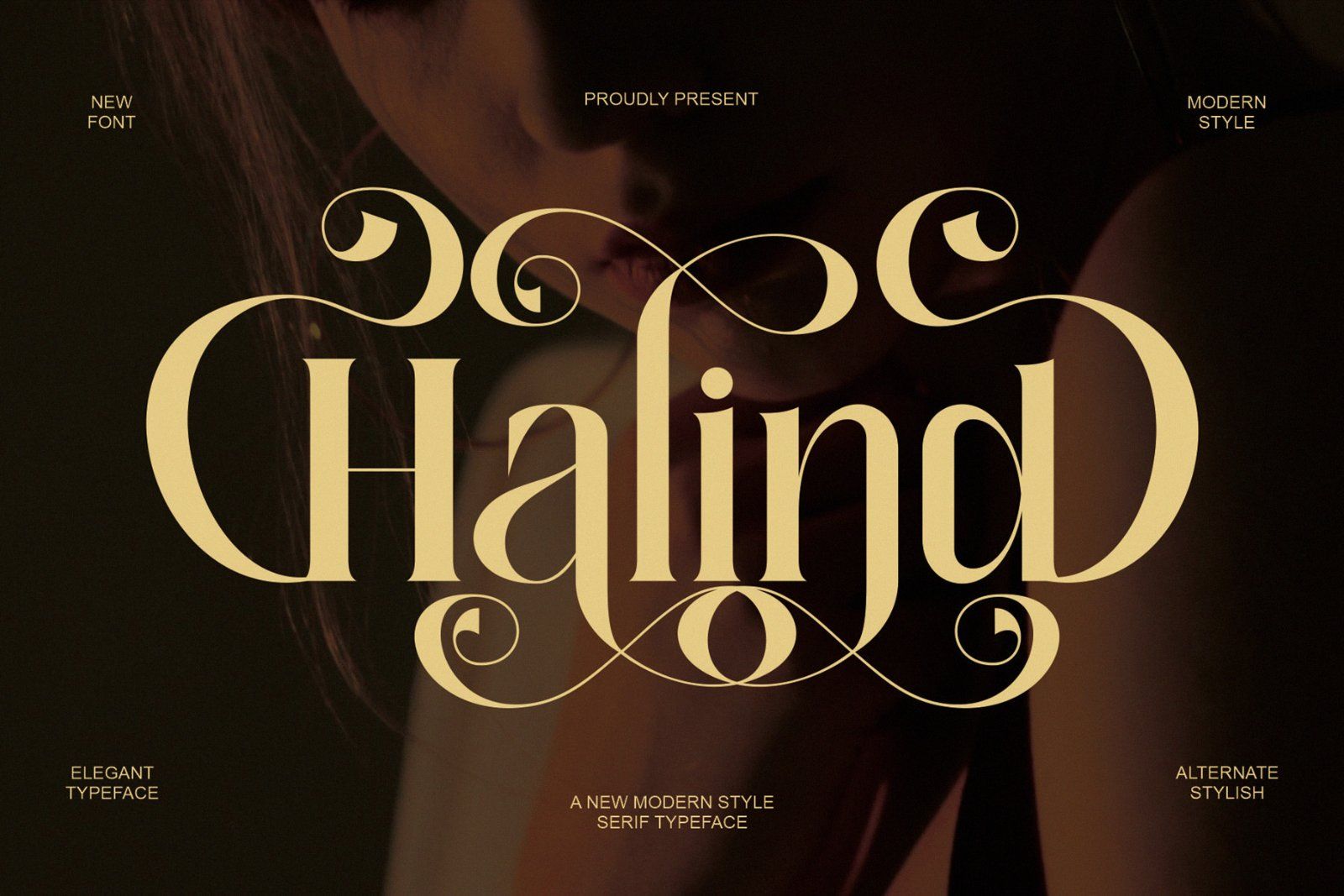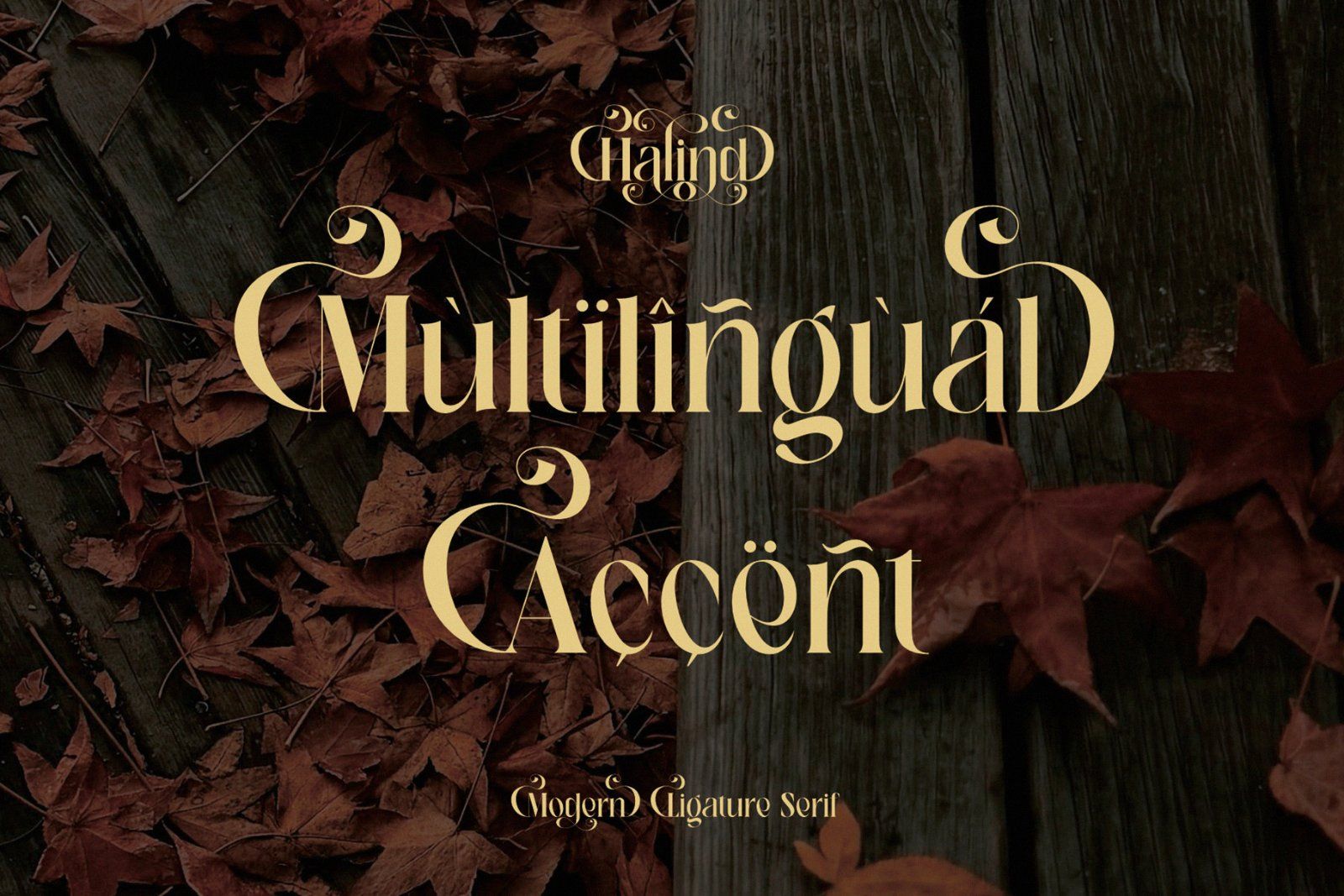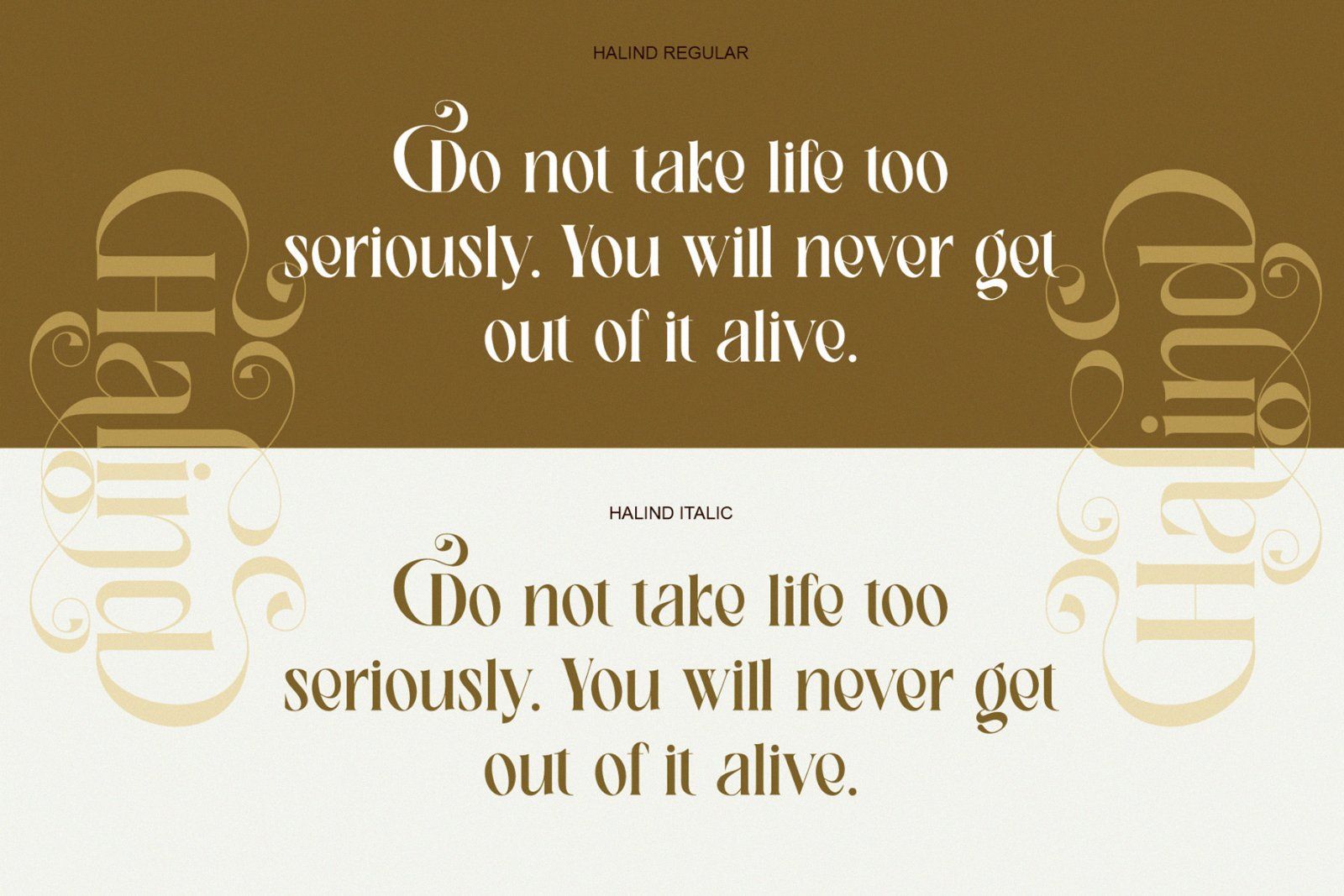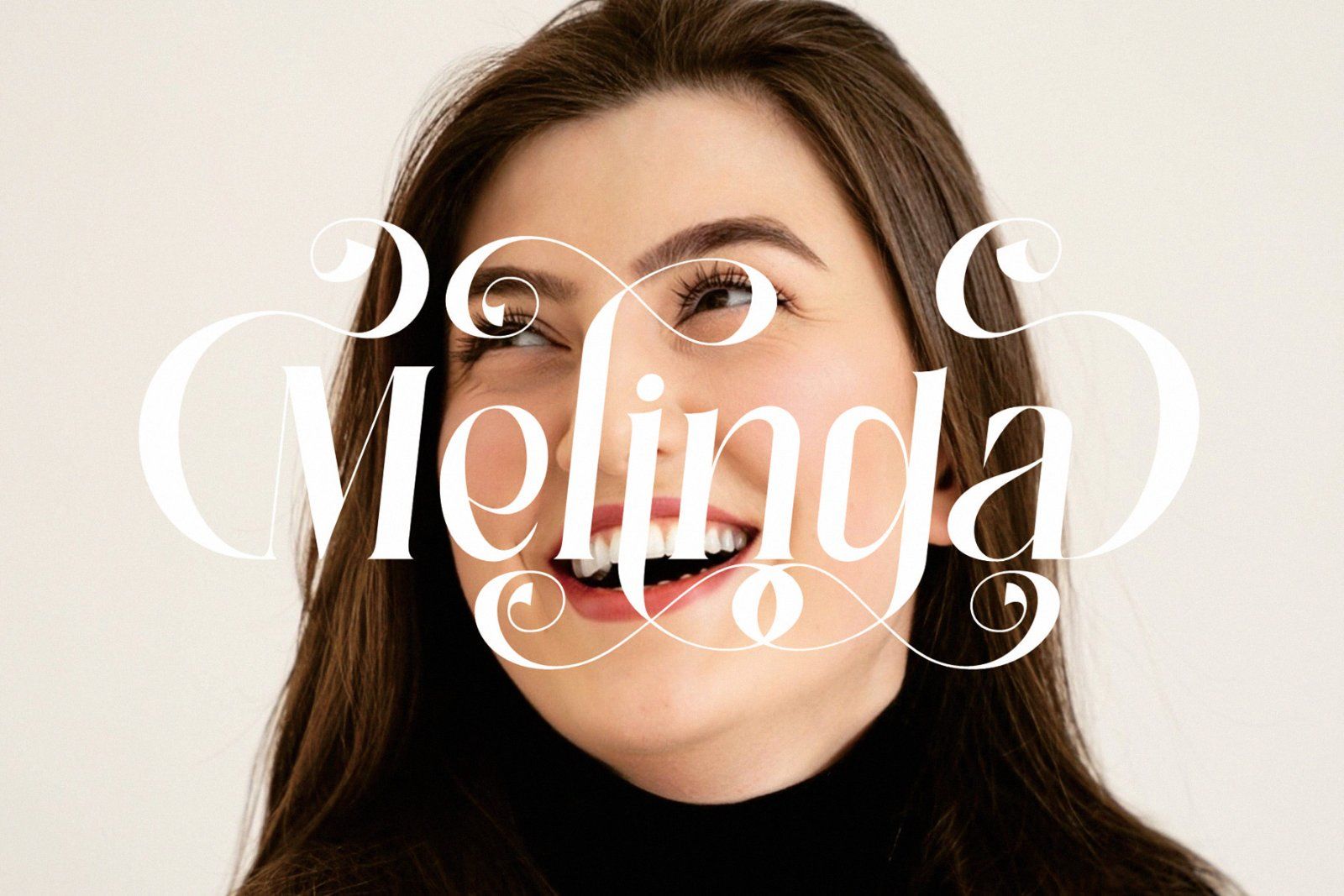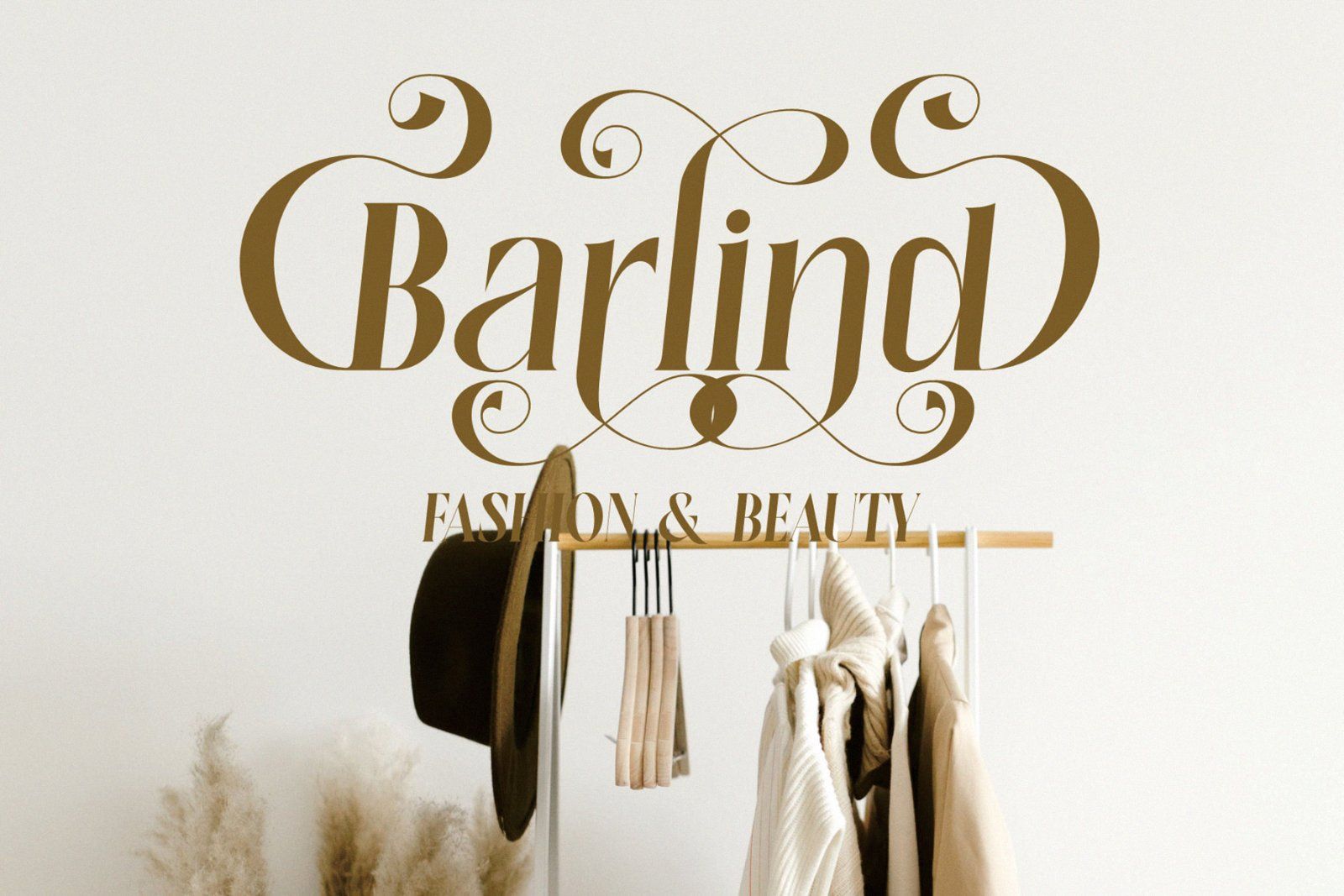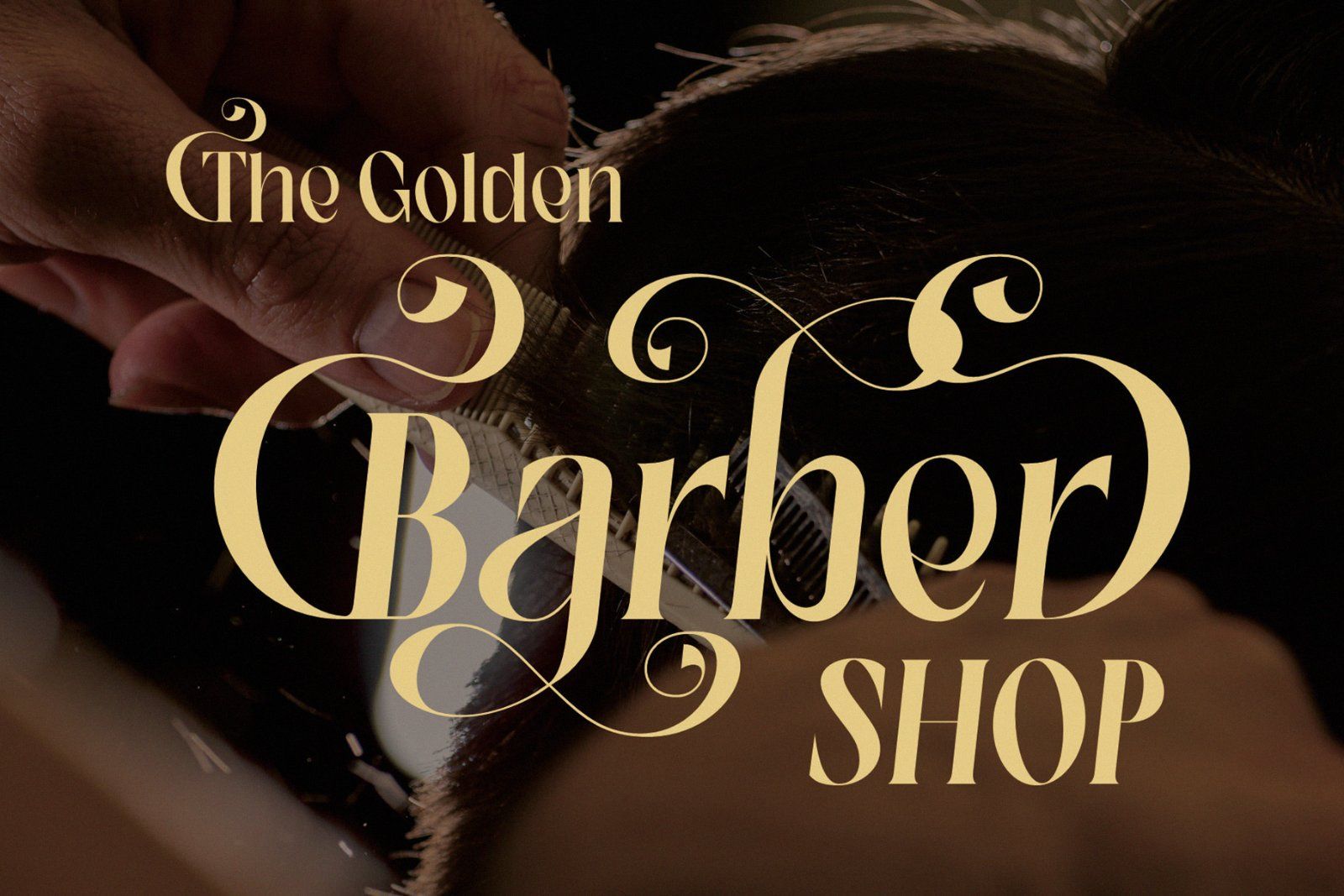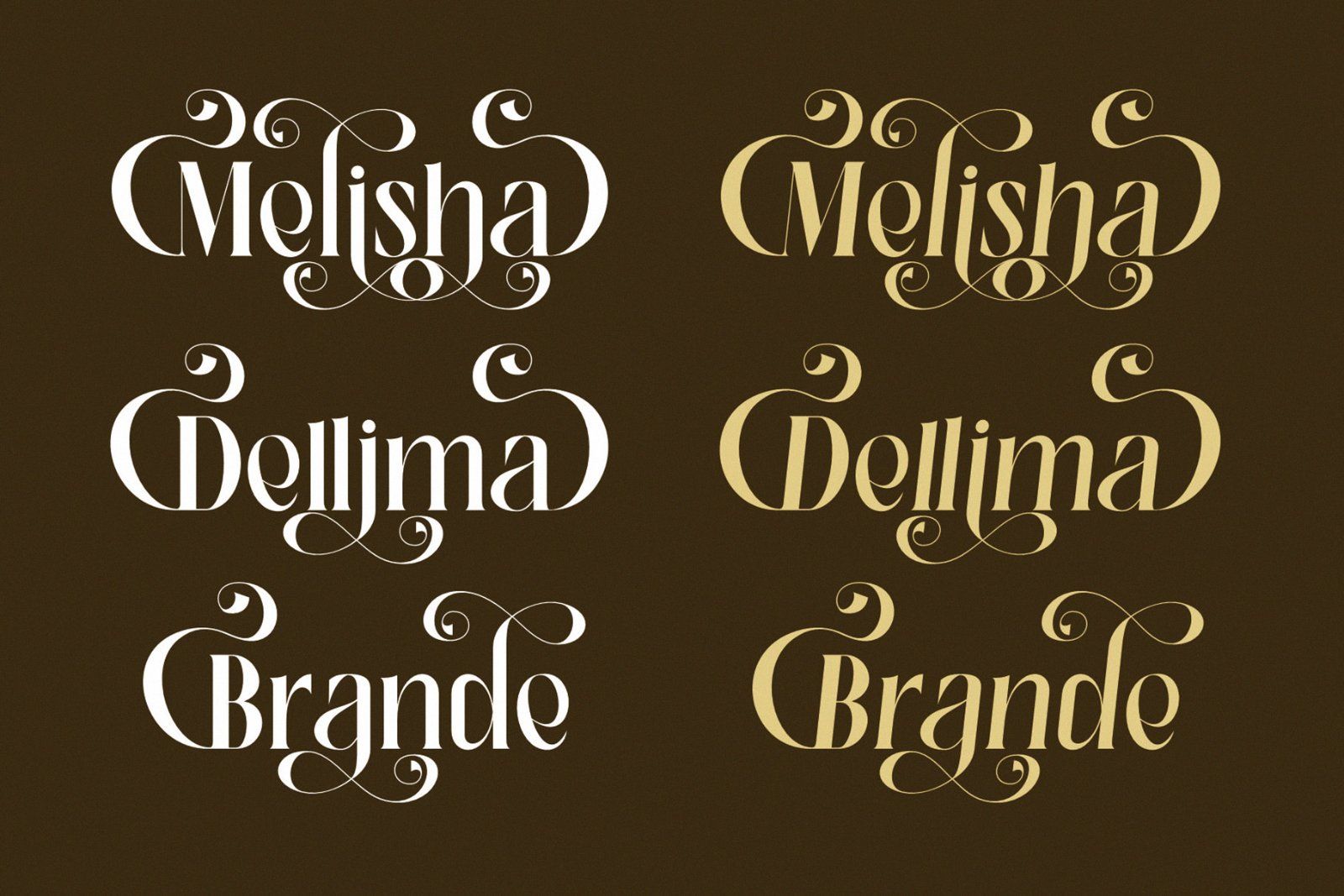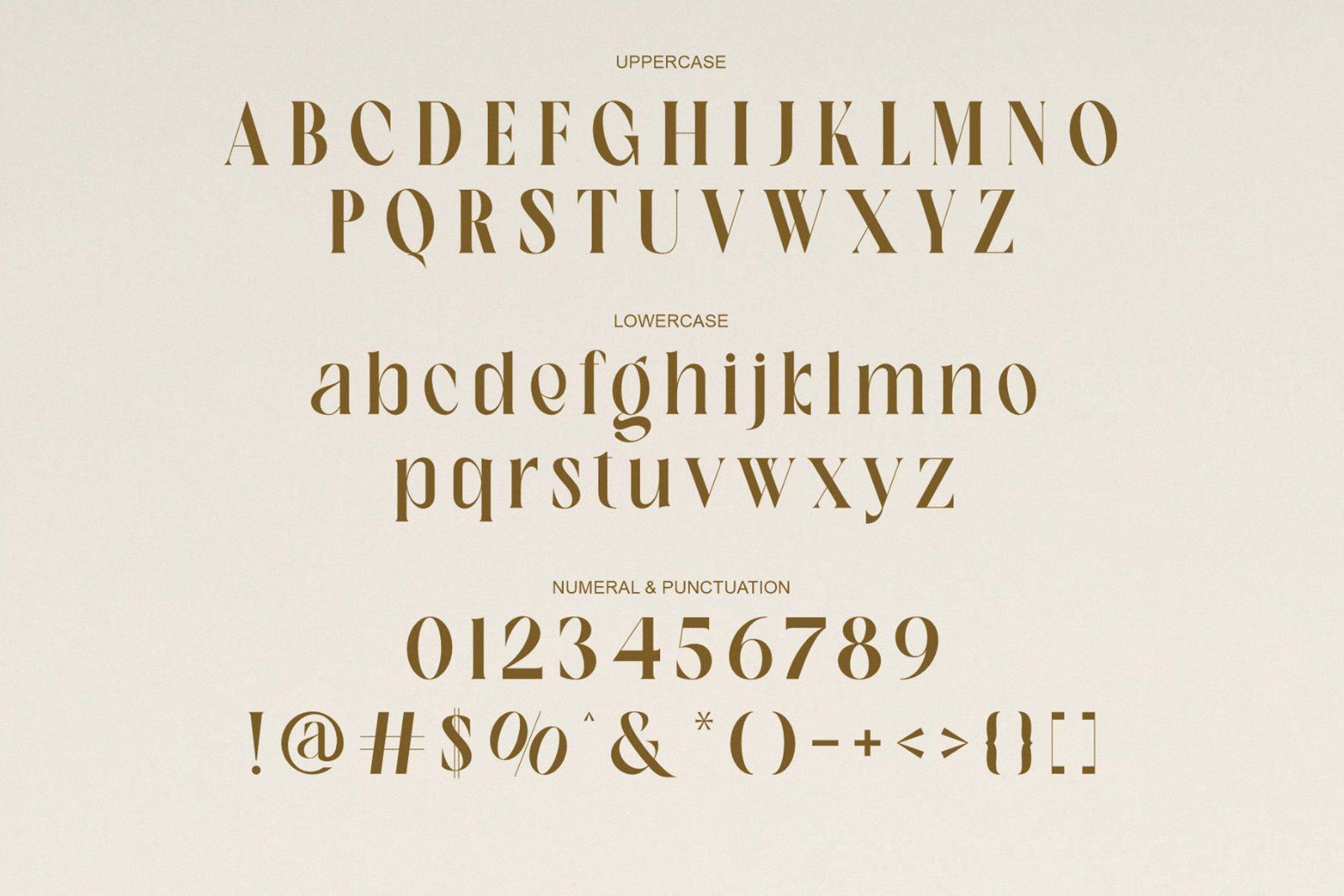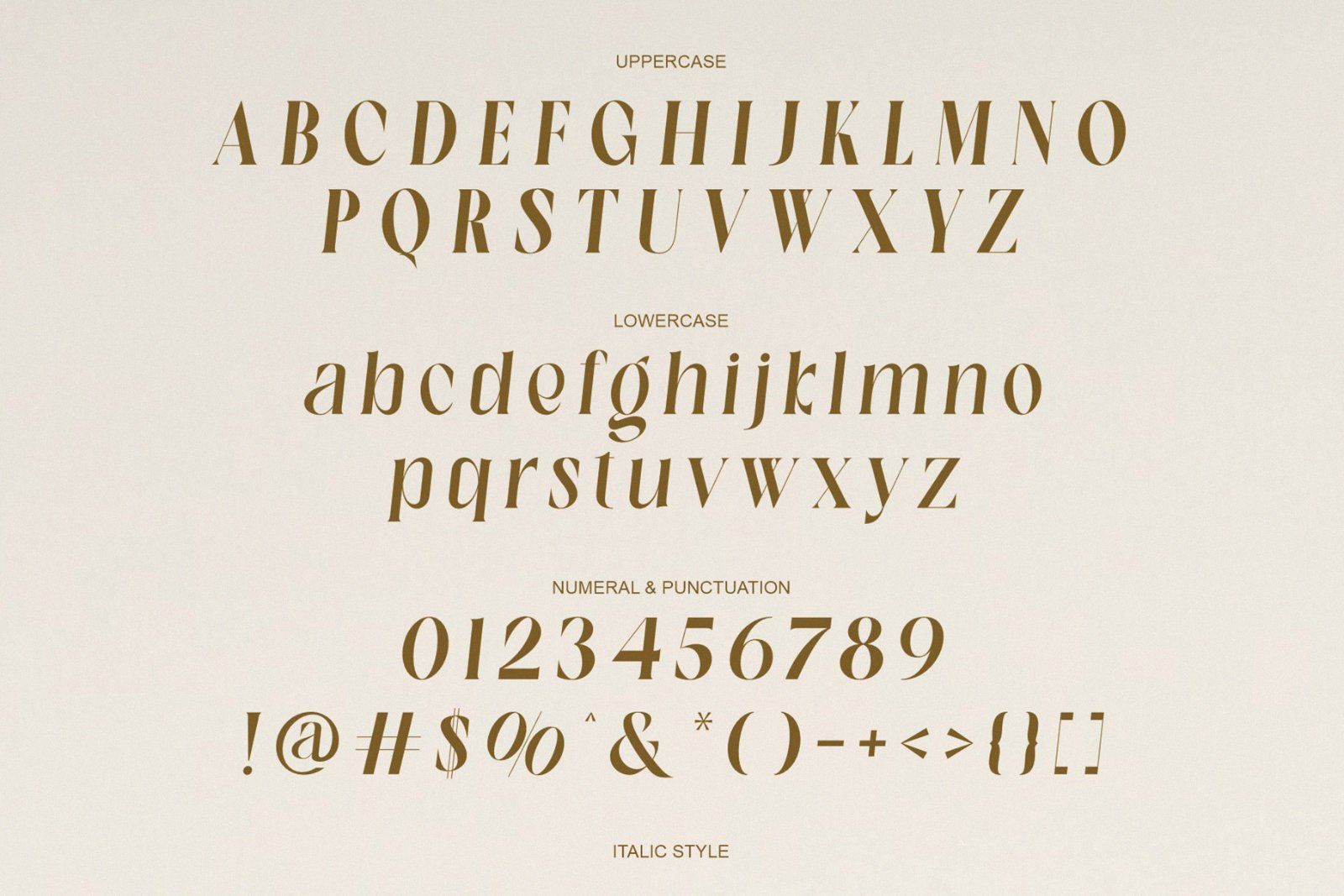
### **HALIND — Modern Elegant Serif Typeface**
**HALIND** is an elegant modern serif typeface crafted to bring sophistication, luxury, and timeless beauty to your designs. Featuring high-contrast serif details, graceful curves, and distinctive letterforms, HALIND creates a refined look with a contemporary fashion-forward character.
Designed with **2 versatile styles — Regular & Italic**, HALIND gives you the freedom to create both sophisticated and expressive typography. The Regular style delivers a clean and luxurious appearance, while the Italic adds an elegant, flowing, and artistic touch.
HALIND is perfect for **luxury branding, fashion logos, beauty brands, editorial designs, magazine covers, wedding invitations, packaging, posters, social media content, headlines, and feminine branding**.
### **HALIND Font Features**
* **2 Styles:** Regular & Italic
* Elegant modern serif design
* High-contrast letterforms
* Stylish and sophisticated appearance
* Beautiful uppercase & lowercase characters
* Numbers & punctuation
* Fashion & editorial inspired
* Suitable for luxury and premium branding
* Versatile for both print and digital designs
**HALIND** — *Where modern elegance meets timeless typography.*
A sophisticated serif typeface designed to make every word feel **luxurious, graceful, and unforgettable.**